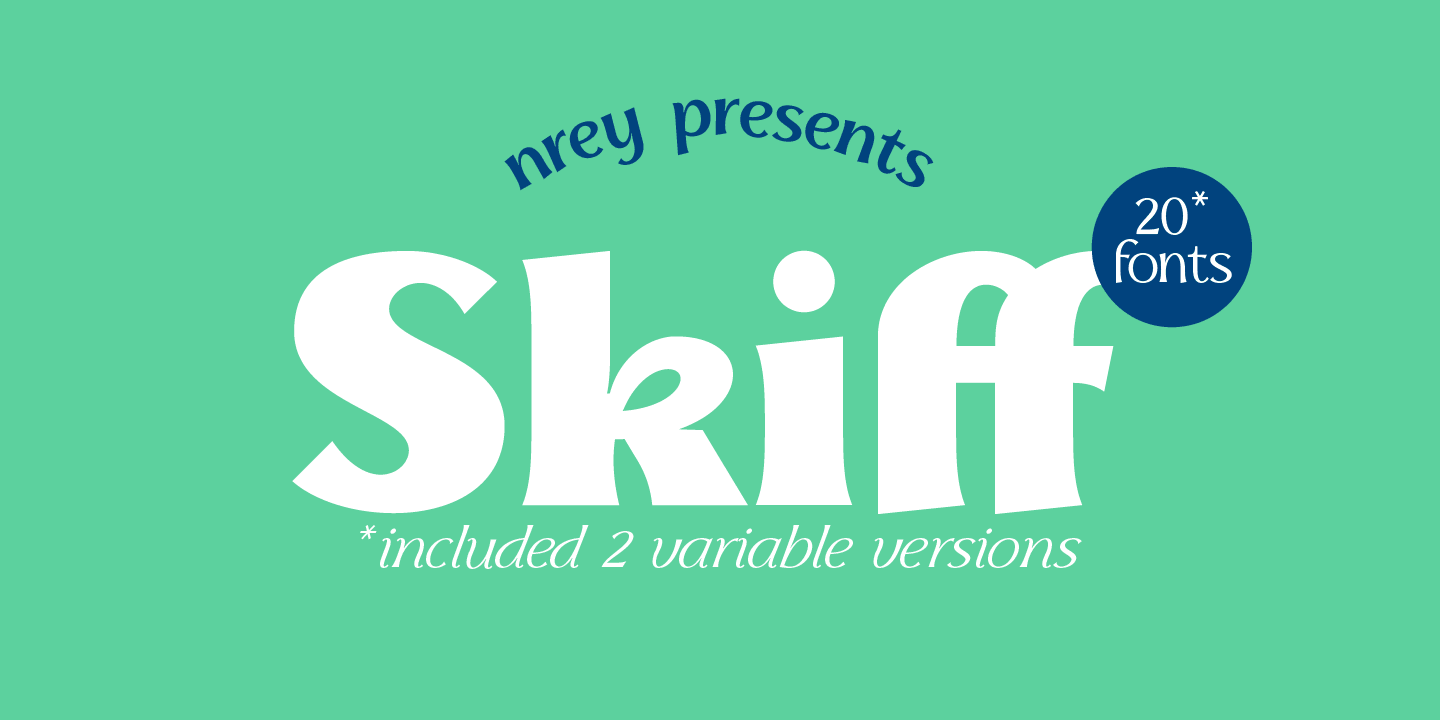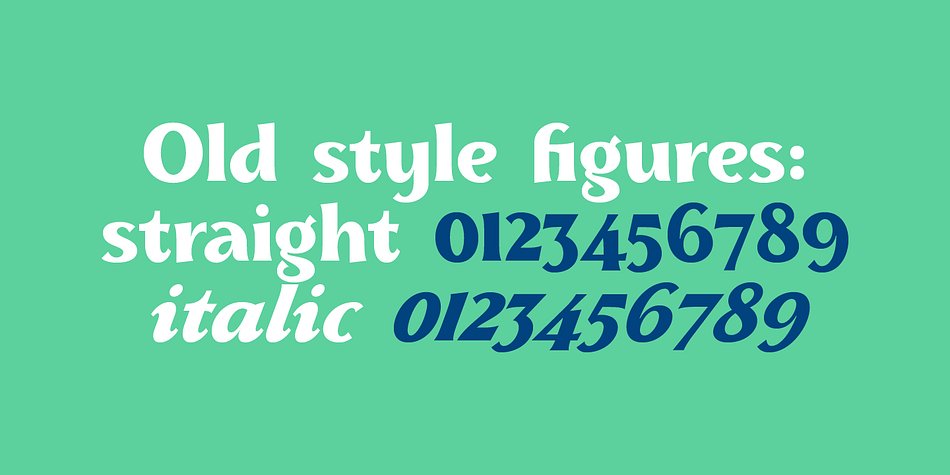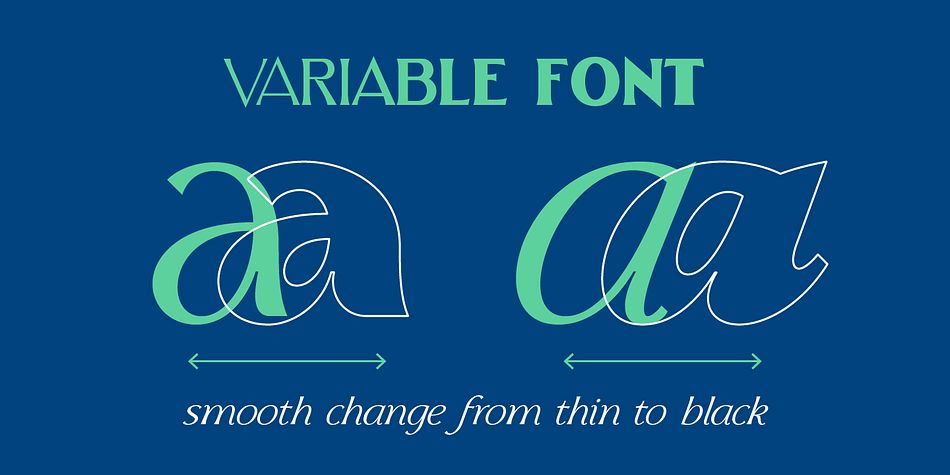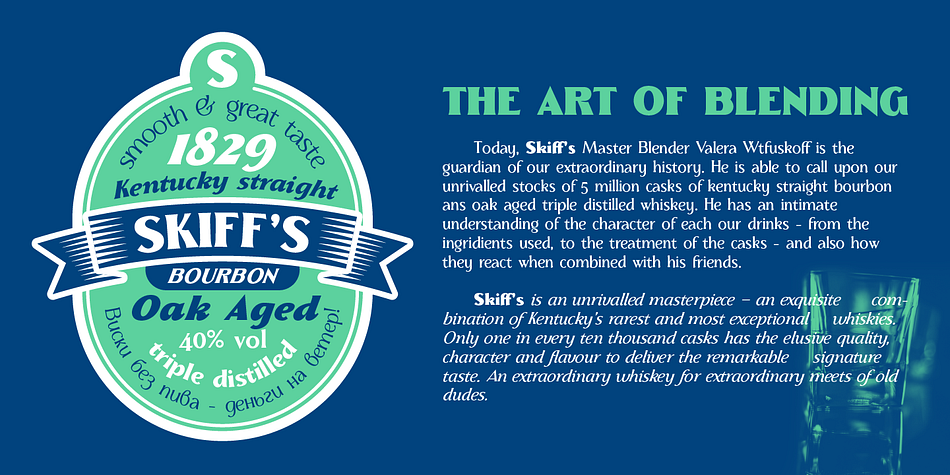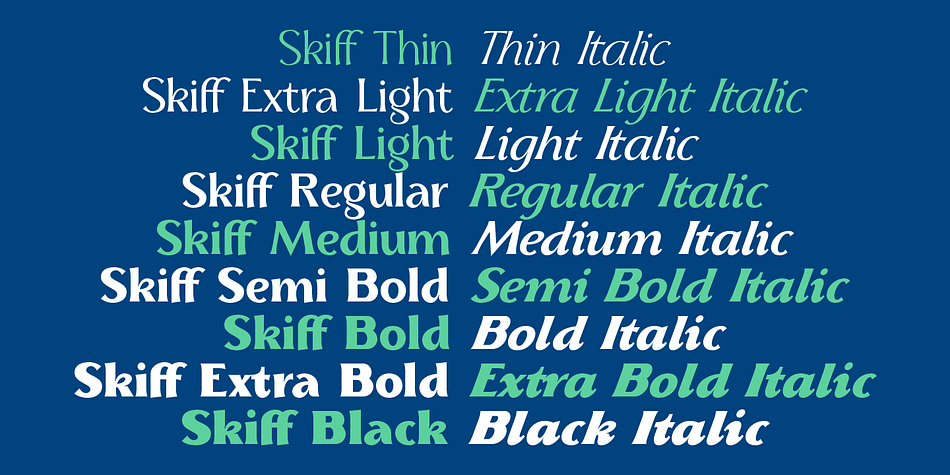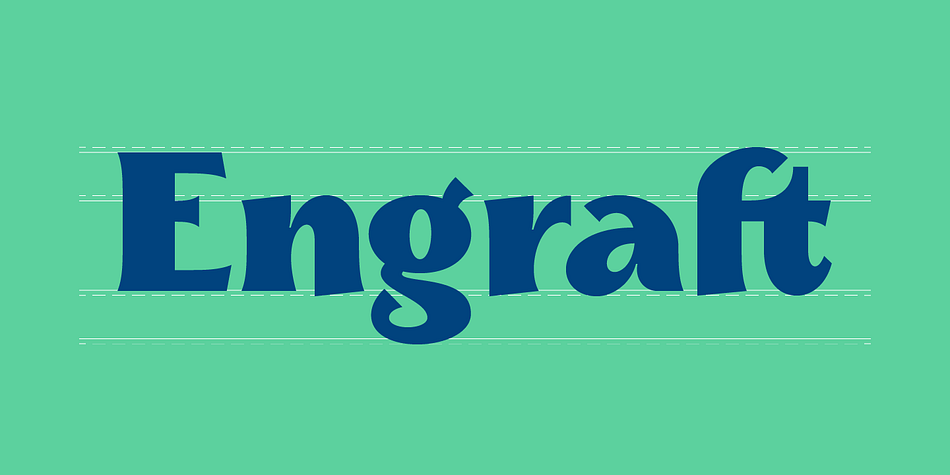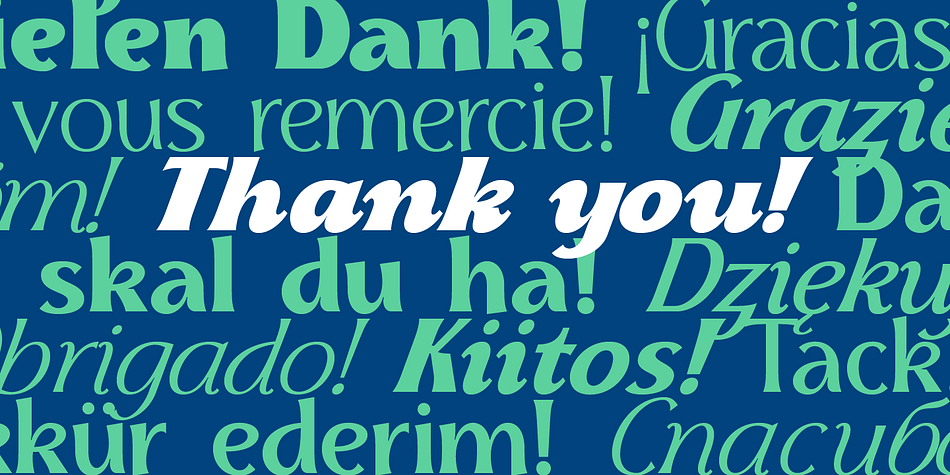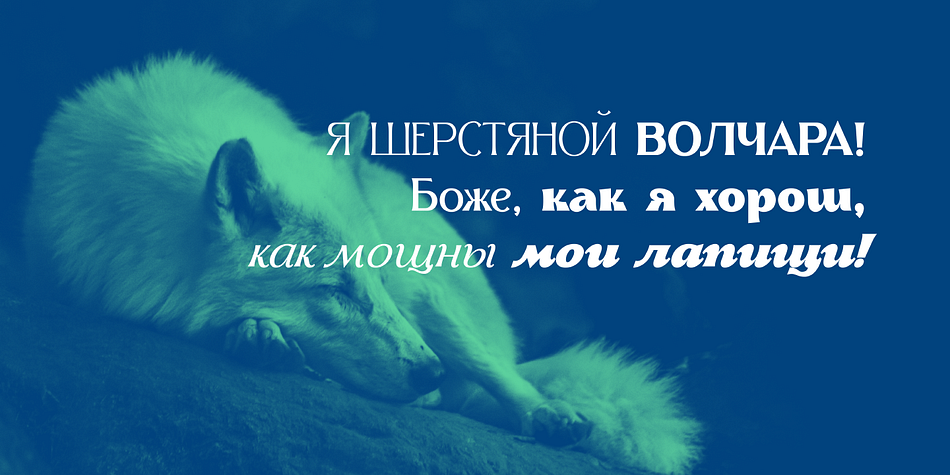
Skiff is a display sans and sans serif font family. This typeface has twenty styles and was published by NREY.
Skiff type family is transition from modern antique fonts to sans-serif fonts.
Font has medium contrast and almost serifless sharp edges, which give it a classy, playful and a more contemporary look. Many glyphs have ink traps.
Italic weights have been carefully crafted with a strong calligraphic influence. Also font has streight styles with rounded soft edges.
Available in 18 styles + 2 variable versions, Skiff is a modern font, also featuring true italics can take designs to another level. Is ideal for naming, magazines, short text, logos, branding design, packaging and advertising.